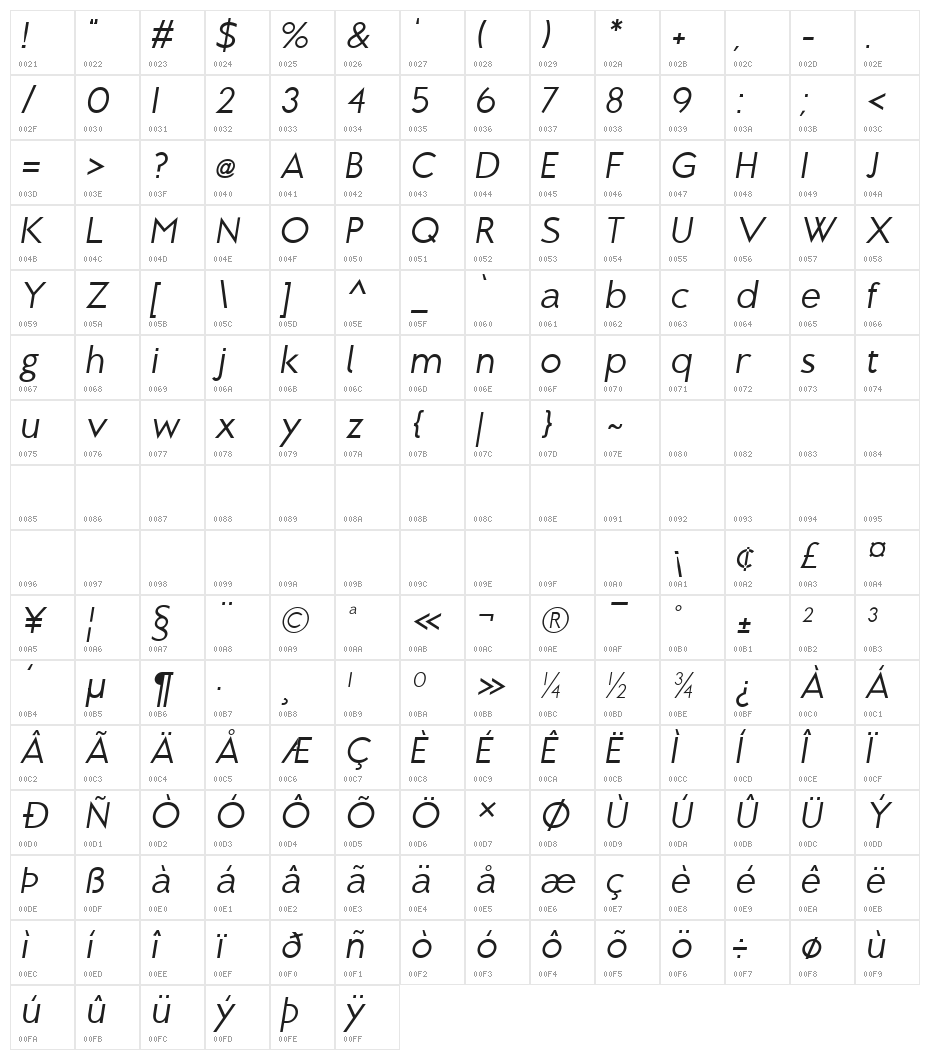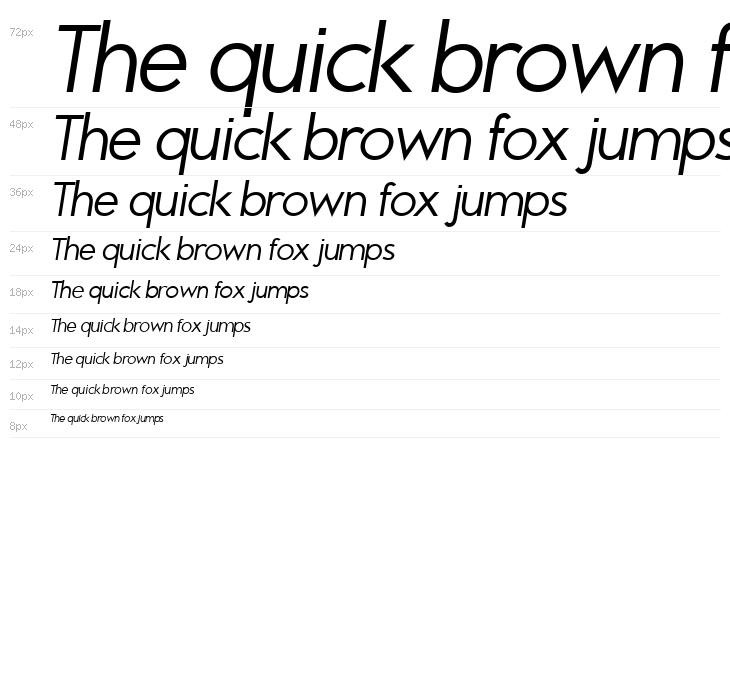
Brixton Book Oblique Font
Brixton Book Oblique Description
This font features a sleek, modern design with a slight oblique slant, giving it a dynamic and forward-moving appearance. The characters are clean and geometric, with consistent stroke widths that provide a uniform look across all letters and numbers. The uppercase letters are tall and elegant, while the lowercase letters maintain a harmonious balance with rounded edges. The numerals are clear and easily distinguishable, making them suitable for various applications. Special characters are well-integrated, maintaining the overall aesthetic of the font. This font is versatile, offering a contemporary feel that can enhance both digital and print media.
| Proposed Projects | Ideal for branding, advertising, web design, and editorial layouts where a modern and sleek appearance is desired. |